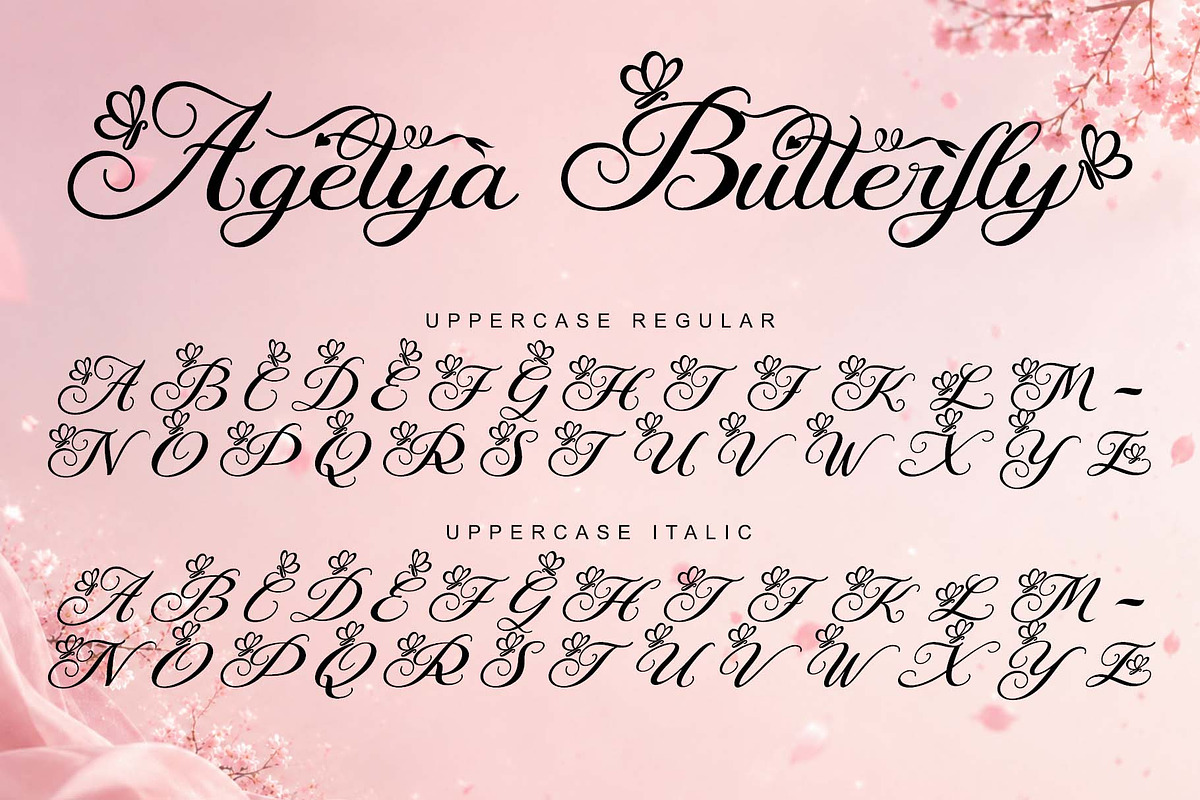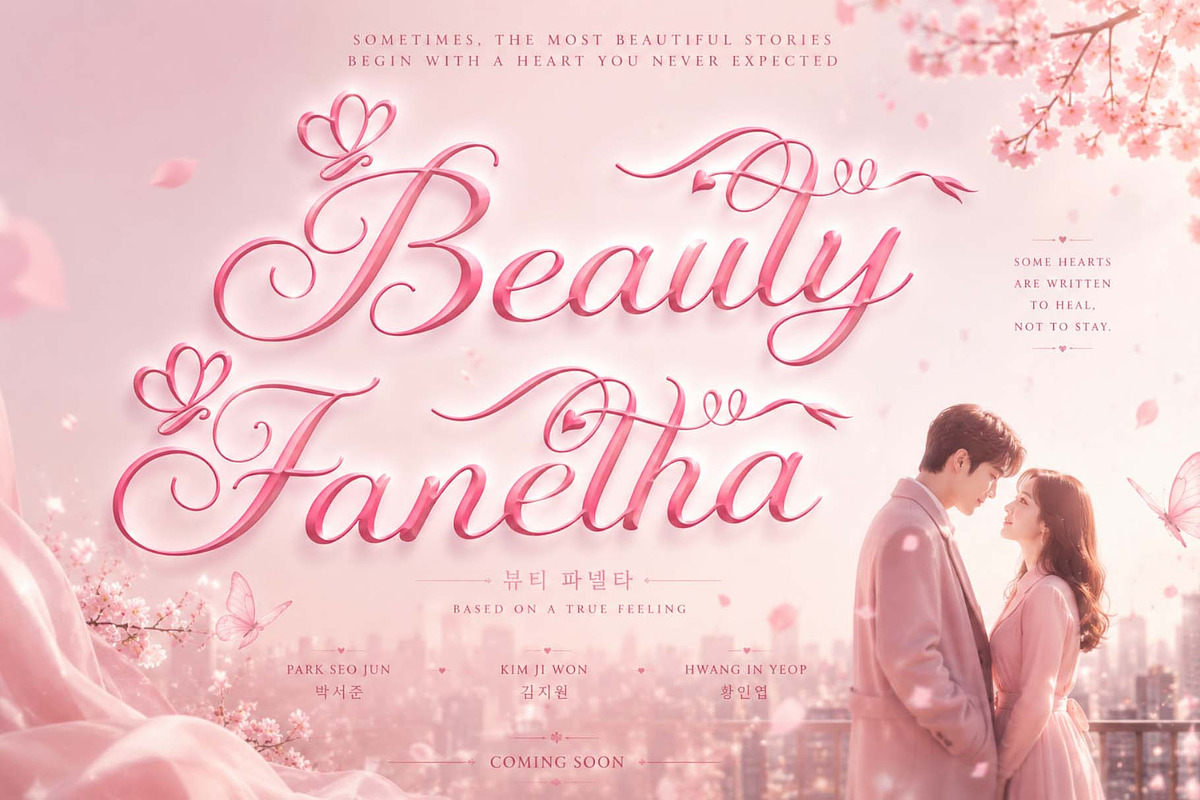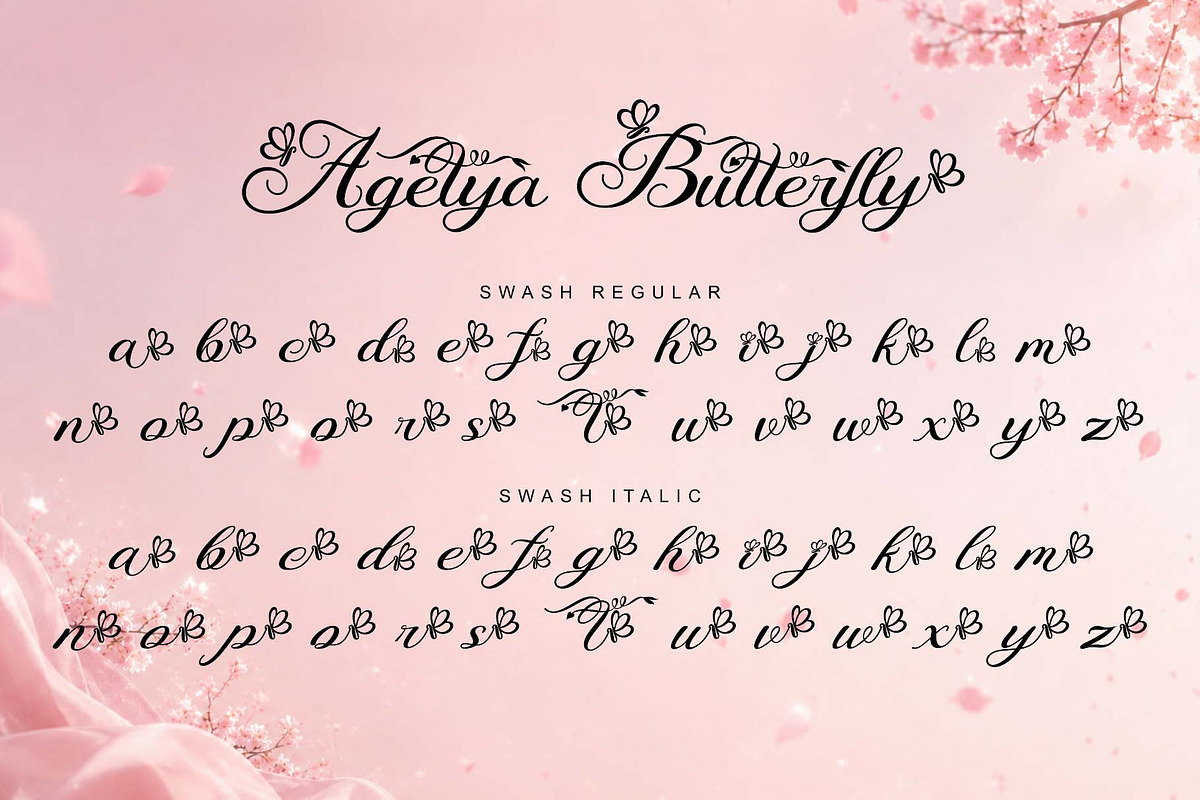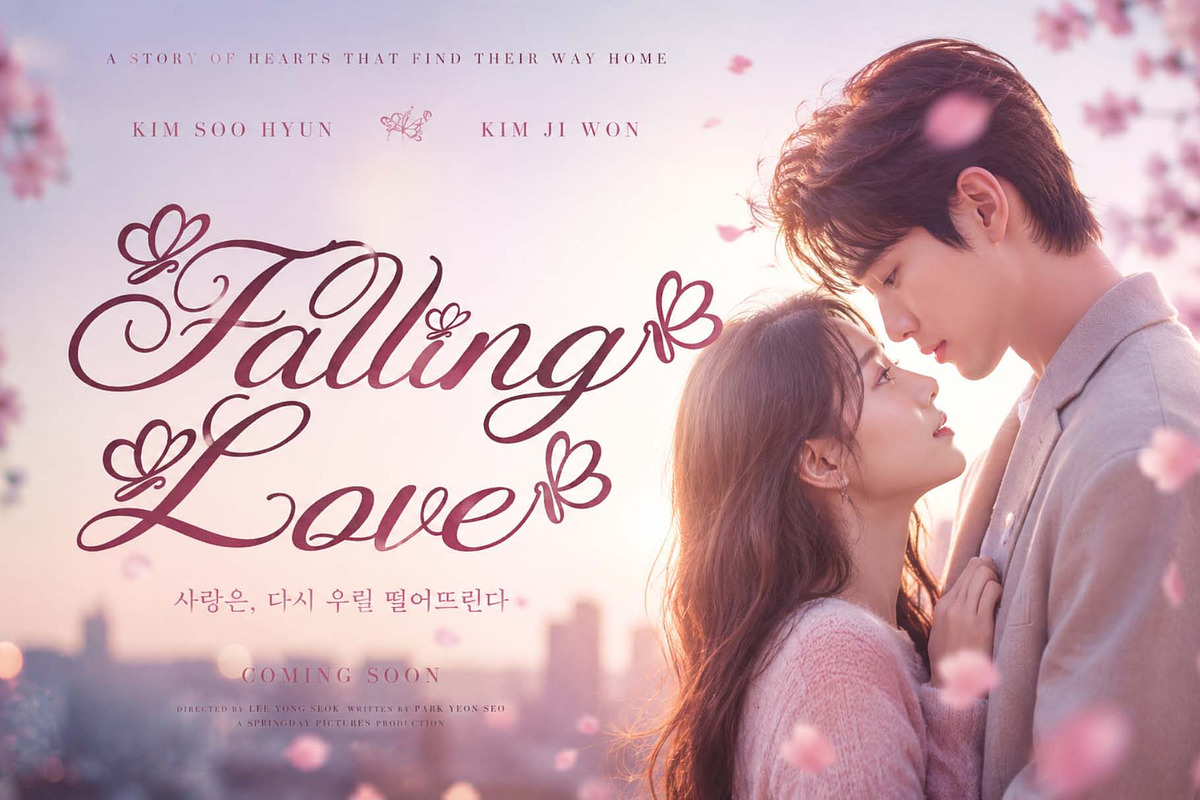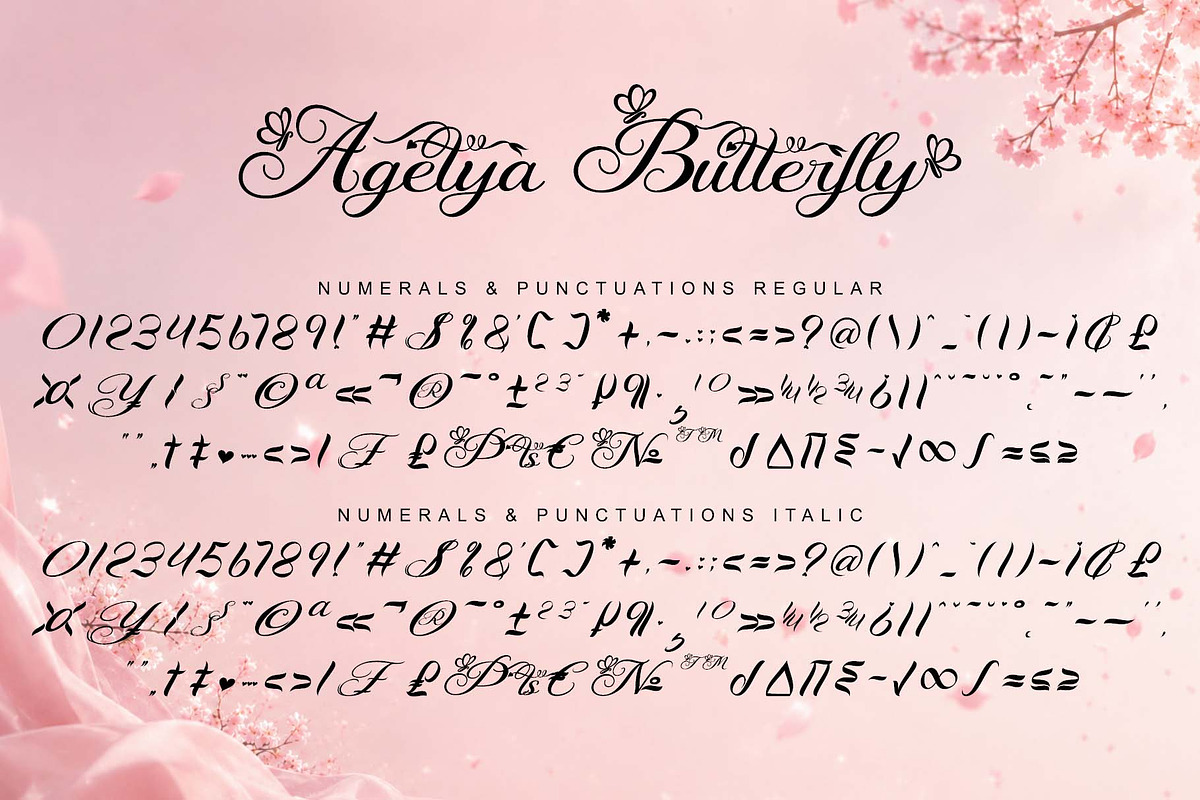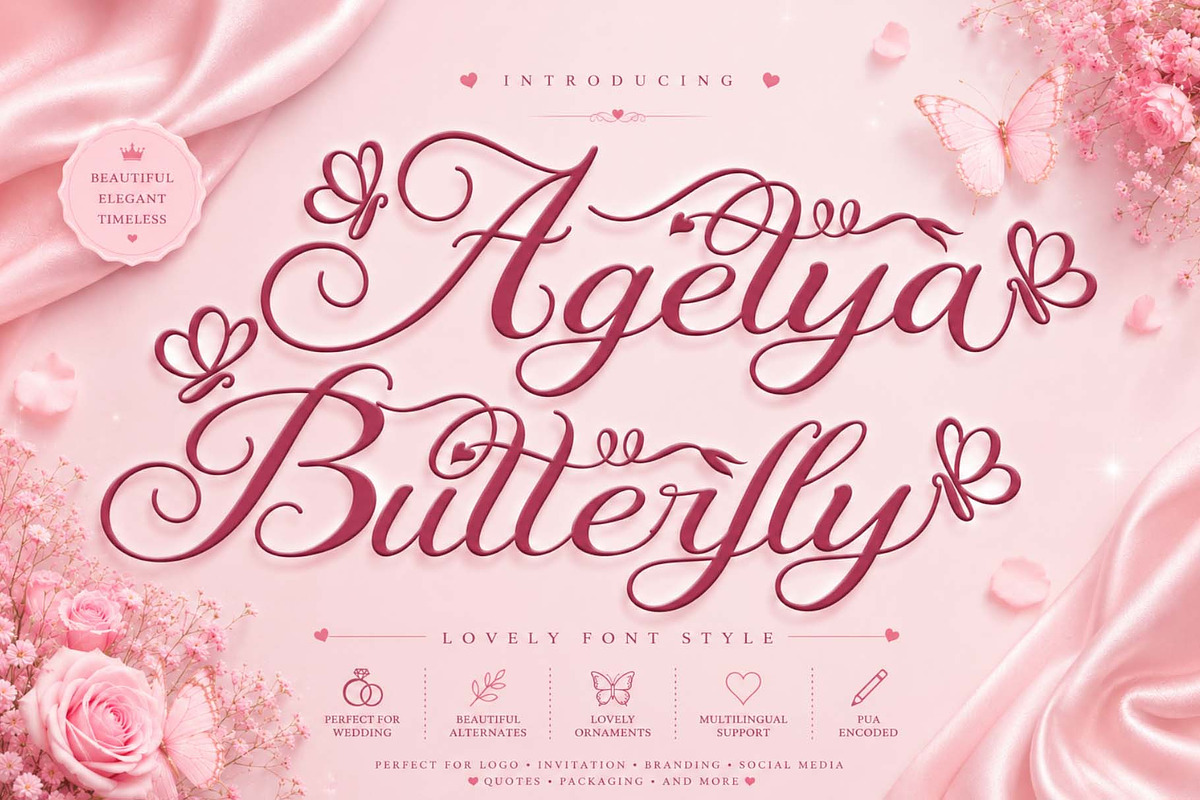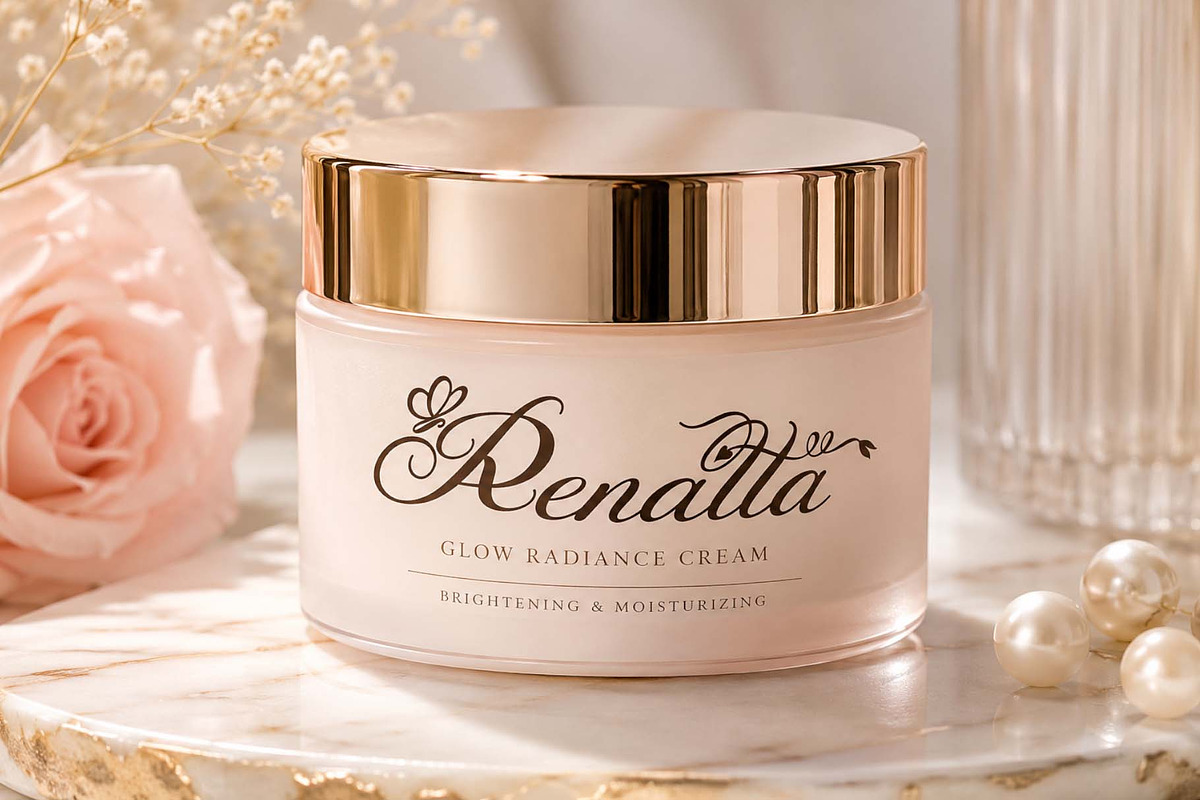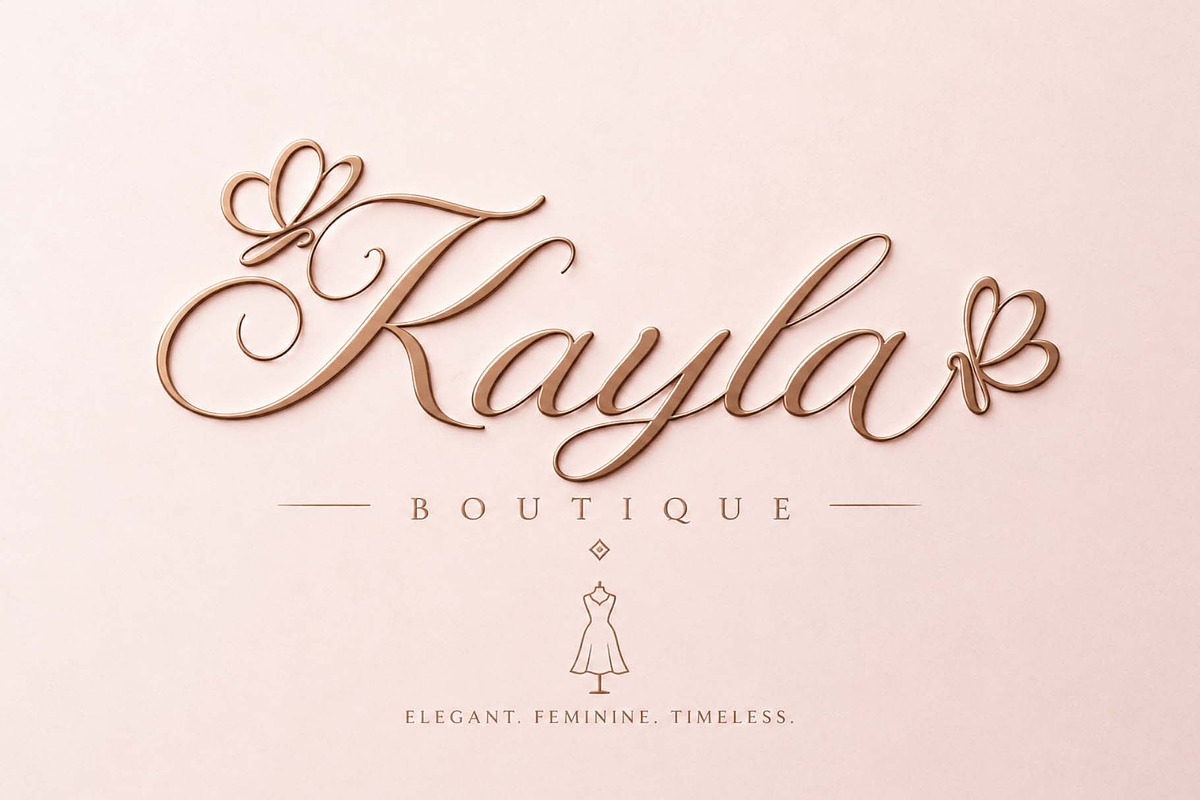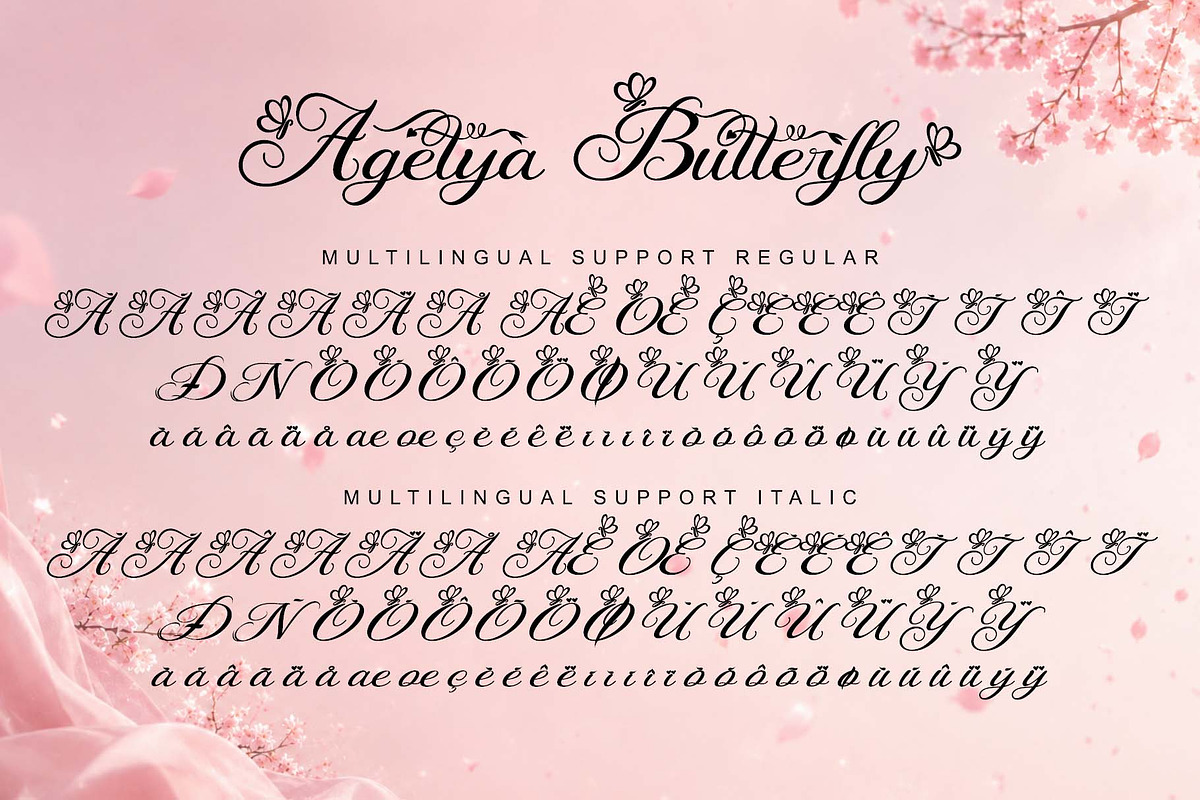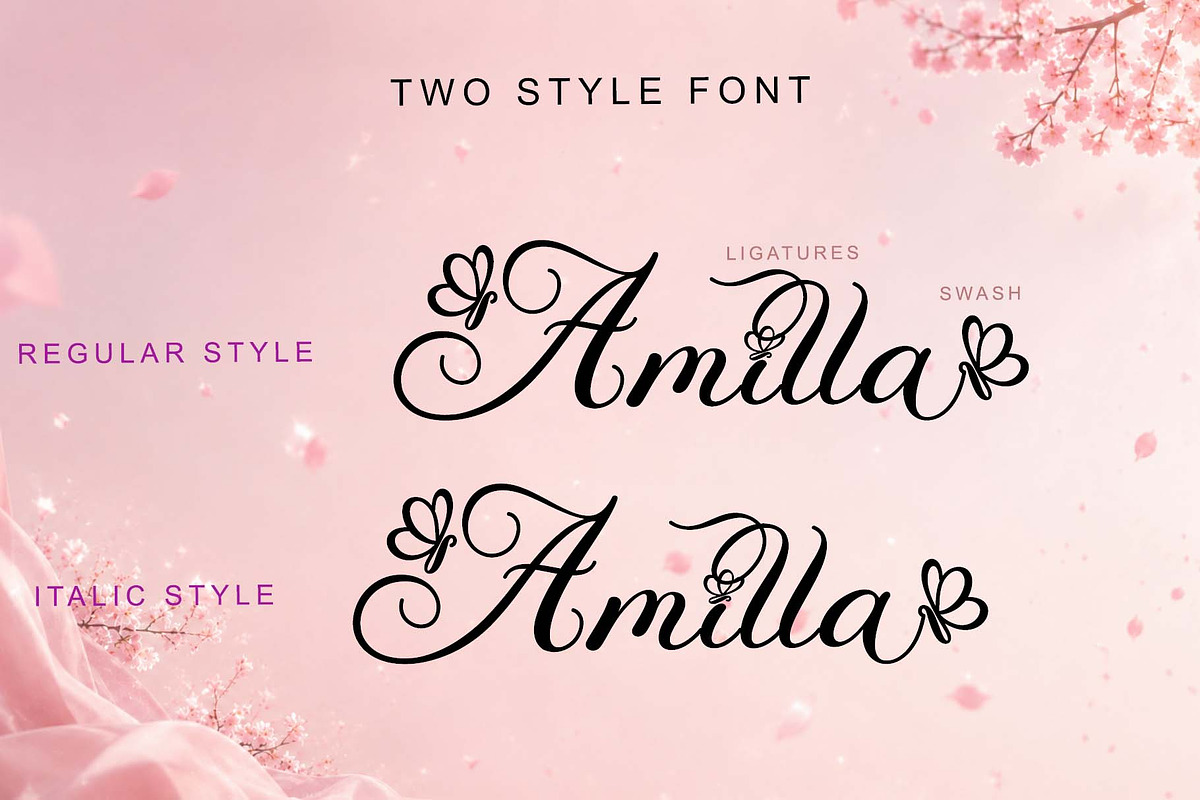
Agetya Butterfly
"Agetya Butterfly" is a beautiful and elegant handwritten font. Available in two styles: regular and italic. It features uppercase and lowercase letters, numbers, punctuation, multilingual support, ligatures, swashes, and alternates. It's perfect for romantic movies, wedding invitations, photography, floral arrangements, social media, advertisements, YouTube, Christmas, summer, Valentine's Day, song titles, movie titles, and more.